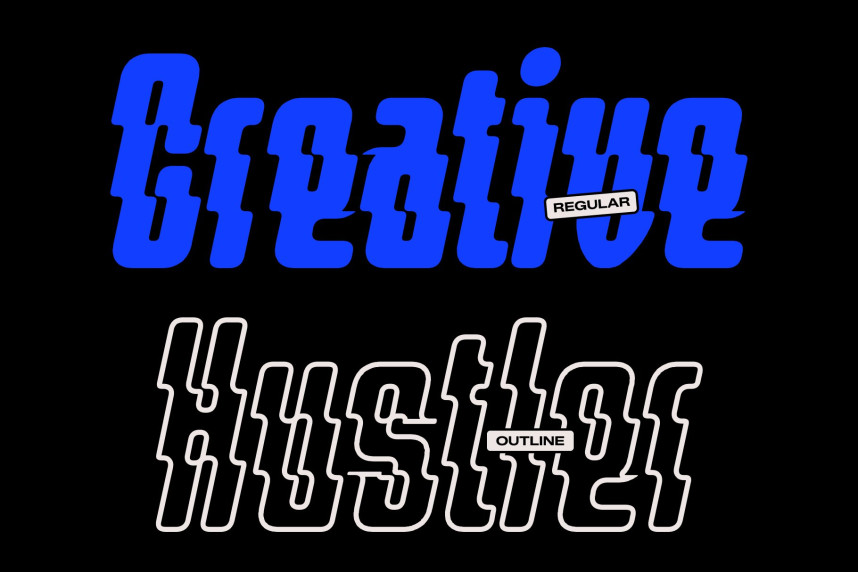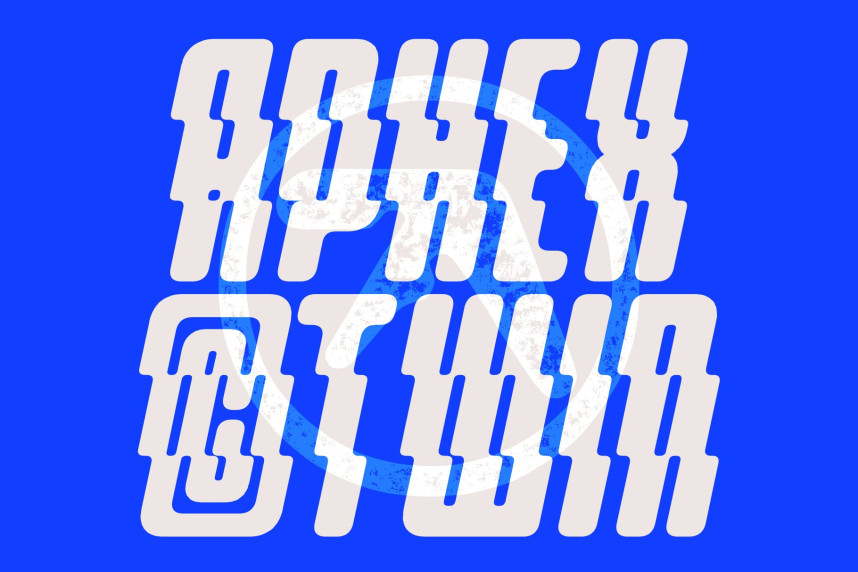
CS Gustaz Rippled Font
CS Gustaz Rippled Font – Modern Condensed Display Font: Where Industrial Boldness Meets Fluid Wave Motion
Industrial Strength with Powerful Visual Impact
This is a modern condensed display font designed to deliver industrial boldness and commanding visual presence. Its narrow proportions, strong construction, and impactful letterforms create a powerful rhythm that maximizes attention while maintaining space efficiency. Built for high-visibility applications, it projects confidence, strength, and modern functionality.